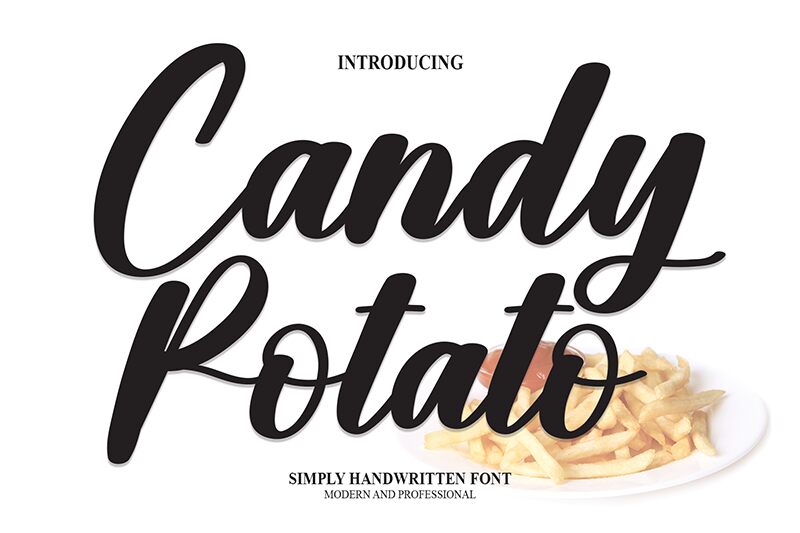
Candy Potato
Candy Potato, the bold and smooth brush font by scratchones, is a versatile typeface perfect for a range of projects. Its playful yet sophisticated style makes it ideal for branding, packaging, and advertising materials. The bold weight ensures readability in headlines and titles while the smooth brush texture adds a touch of personality to any design. Use Candy Potato for invitations, greeting cards, and social media graphics or let it elevate your website or blog headers. This typeface will certainly add that sweet flavor to your projects!
the latest style letters are perfect for wall displays, wedding invitations, social media post logos, advertisements, product packaging, product designs, labels, photography, watermarks, invitations, stationery, and any project that requires taste handwriting.